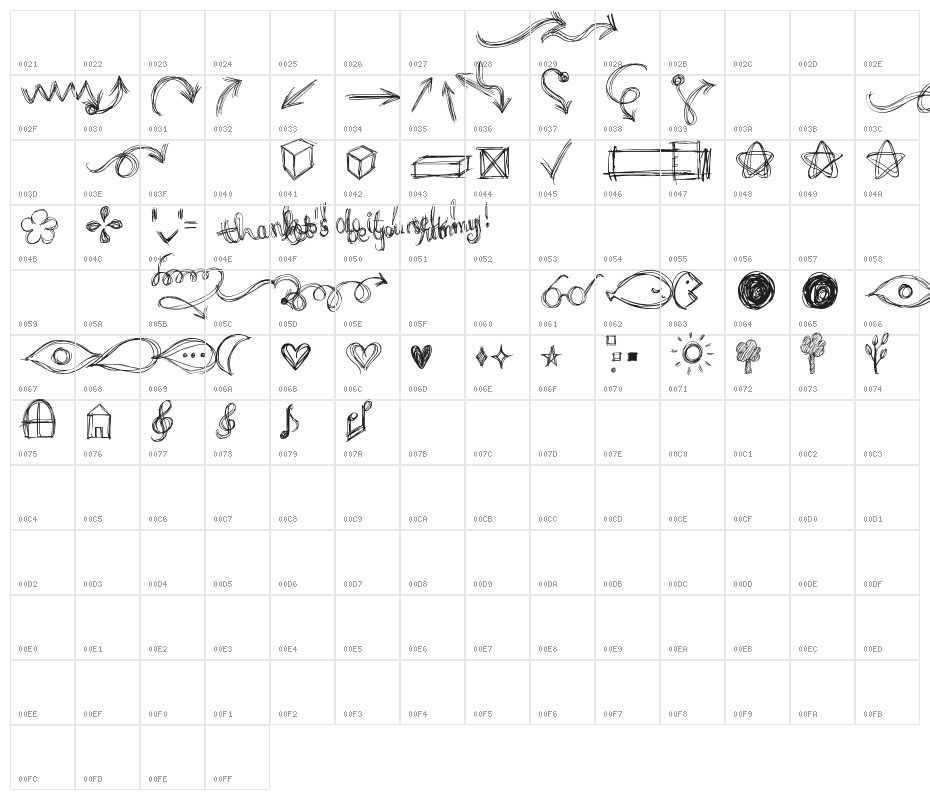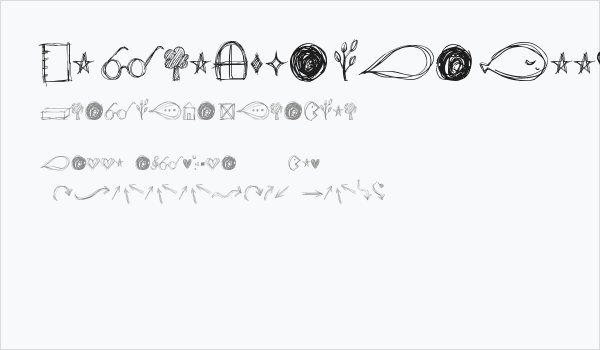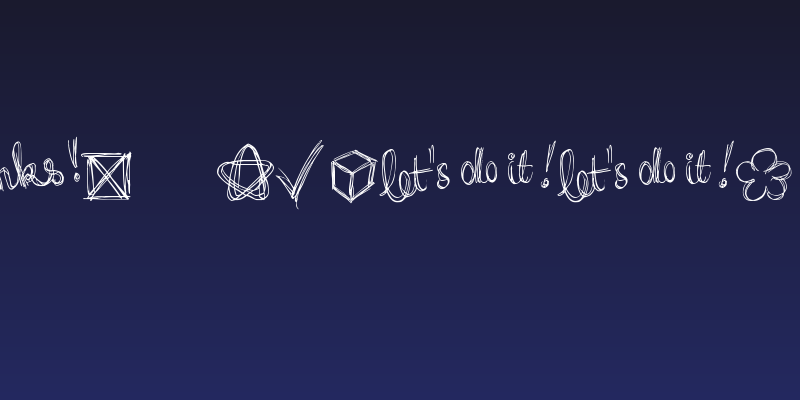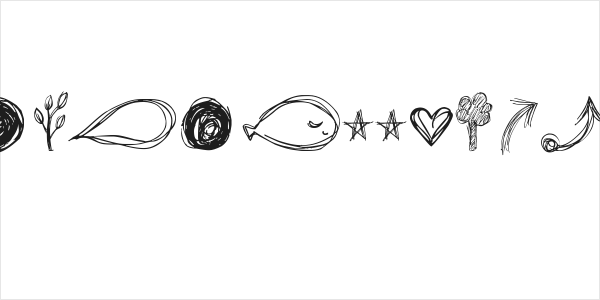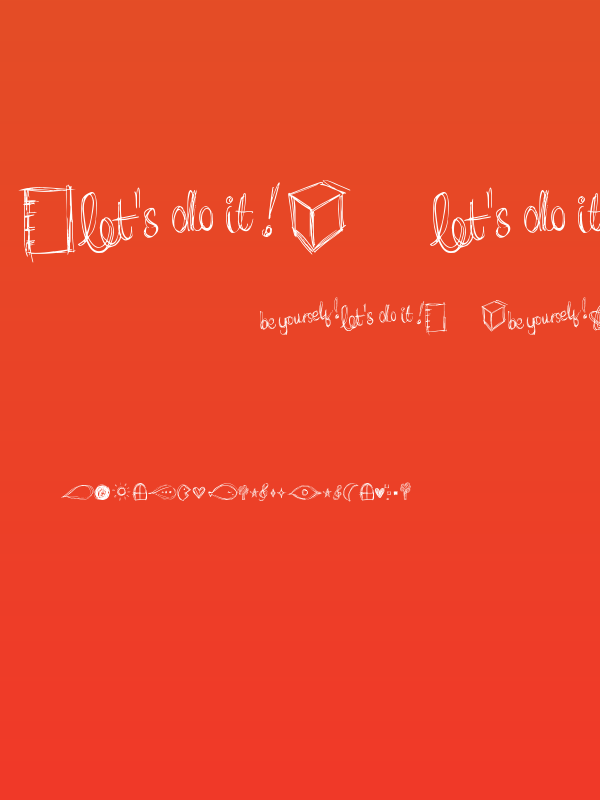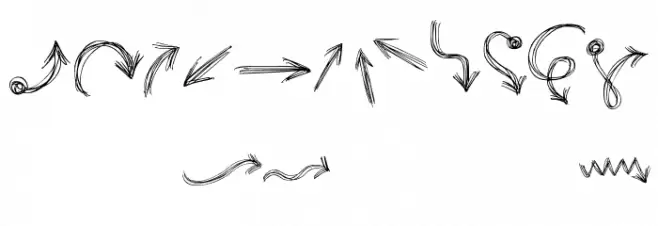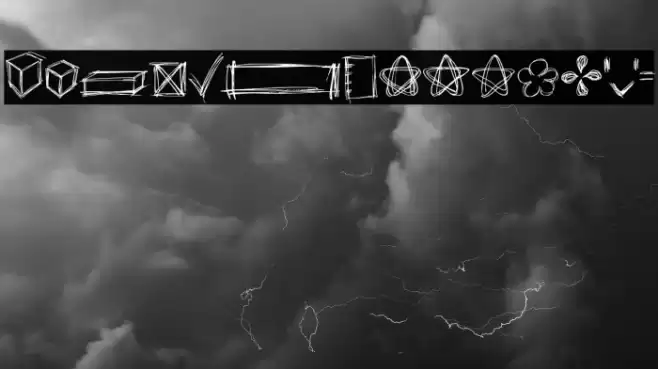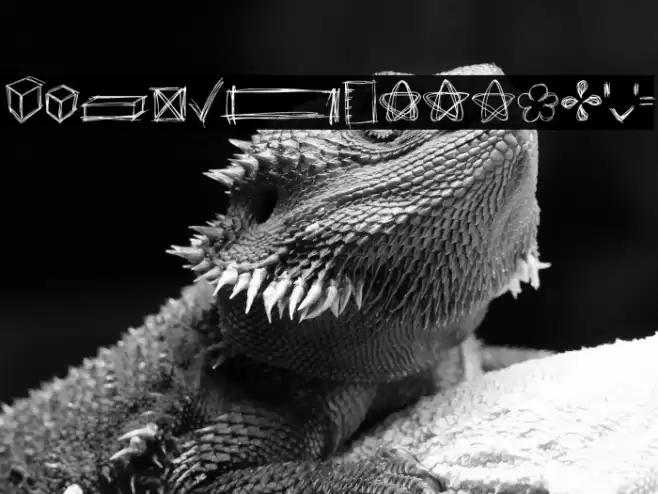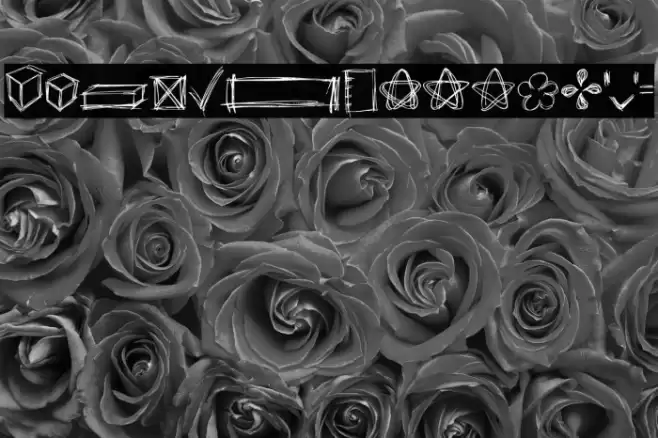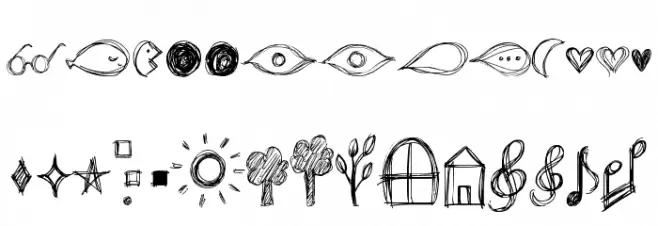
Go around the books 2022 symbol Font
Go around the books 2022 symbol Description
A playful, hand-drawn symbol and dingbat set featuring whimsical sketches of geometric shapes, arrows, musical notes, trees, houses, hearts, and handwritten phrases. The lines are irregular and organic, giving a casual, doodle-like appearance.
| Overall Style | Playful, Hand-drawn, Whimsical |
| Use Case | Decorative accents, icons, informal headings, creative projects. |
| Proposed Projects | Children’s books, educational materials, creative posters, informal invitations, scrapbooking, playful branding. |